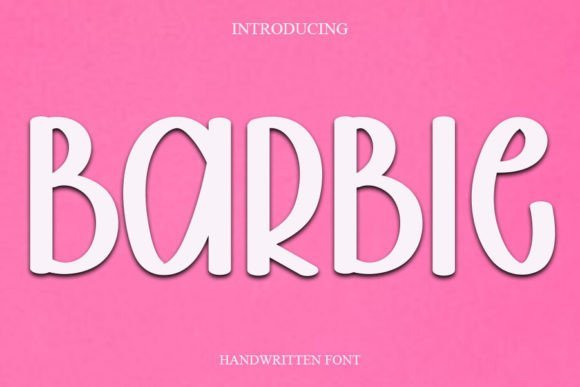
Unleashing Whimsy: The Magic of Barbie Font
You know that moment when you stumble upon a font that instantly sparks creativity? For me, it was when I first laid eyes on the enchanting Barbie Font. Its playful, handwritten style had me envisioning a world of adorable invitations, Instagram captions, and whimsical quotes.
The Barbie Font is more than just a pretty face – it’s a versatile tool that adds a touch of warmth and personality to any design project. With its unique, dancing characters that skip along the baseline, this font is sure to bring a smile to the faces of your audience. Whether you’re a seasoned designer or a creative enthusiast, the Barbie Font is a valuable addition to your typography toolkit.
Barbie Font Key Features
- Font Family: The Barbie Font is a custom-designed font, specifically created for the iconic Barbie brand.
- Unique Characteristics: The Barbie Font features a distinctive, cursive script with a playful and feminine feel, making it instantly recognizable as part of the Barbie brand.
Barbie Font Review
As a designer, I have to say that I was initially excited to try out the Barbie Font. The idea of a playful, youthful font seemed perfect for creating fun and engaging content. But, does it live up to the hype?
- Cute and playful aesthetic
- Perfect for creating eye-catching headlines
- Good for branding and logo designs
- Available in multiple weights and styles
- Not suitable for body text due to its playful nature
- Can be difficult to read at small font sizes
- Lack of sophistication and elegance
- May not be the best choice for formal or professional designs
Overall, the Barbie Font is a fun and creative option for designers who want to add a playful touch to their designs. However, it may not be the best choice for every project. If you’re looking for a font that’s perfect for creating eye-catching headlines and branding, the Barbie Font is definitely worth considering.
The Barbie Font is a playful, cursive font that is perfect for:
- Children’s party invitations
- Wedding invitations
- Social media graphics
- Blog posts and articles
For best results, use the Barbie Font in conjunction with bright colors and playful graphics to create a fun and whimsical design.
Alternatives to Barbie Font for Designers
Comic Sans MS is a casual, cursive font that is often used for informal or playful designs. It is a good alternative to Barbie Font when you want to create a friendly or approachable atmosphere. However, it’s worth noting that Comic Sans MS has been widely criticized for its overuse and lack of professionalism, so use it sparingly.
Comparison to Barbie Font: While both fonts are playful and cursive, Comic Sans MS is more casual and informal than Barbie Font. Barbie Font has a more elegant and refined feel, making it more suitable for designs that require a touch of sophistication.
Great Vibes is a modern, handwritten font that is perfect for designs that require a touch of whimsy and personality. It is a good alternative to Barbie Font when you want to create a fun and energetic atmosphere. Great Vibes is more versatile than Barbie Font and can be used for a wide range of designs, from invitations to social media graphics.
Comparison to Barbie Font: While both fonts are playful and cursive, Great Vibes is more modern and versatile than Barbie Font. Barbie Font has a more classic and timeless feel, making it more suitable for designs that require a touch of elegance.
Carolyna Pro is a modern, script font that is perfect for designs that require a touch of sophistication and elegance. It is a good alternative to Barbie Font when you want to create a high-end or luxury atmosphere. Carolyna Pro is more refined and polished than Barbie Font, making it more suitable for designs that require a touch of glamour.
Are there any free alternatives to the Barbie Font?
Yes, there are several free fonts that are similar in style to the Barbie Font. Some popular alternatives include Arial, Helvetica, and Open Sans. These fonts are widely available and can be downloaded for free from various font repositories, such as Google Fonts or Font Squirrel. However, keep in mind that these fonts may not be exact duplicates of the Barbie Font and may have slightly different characteristics.